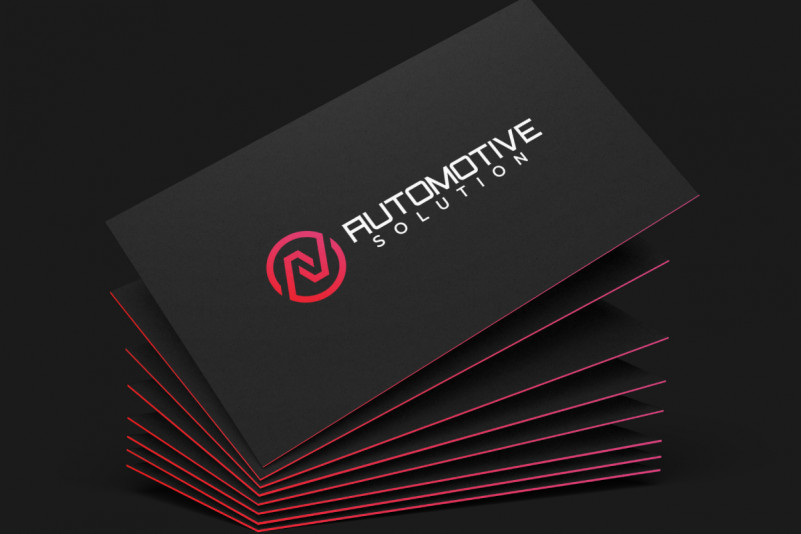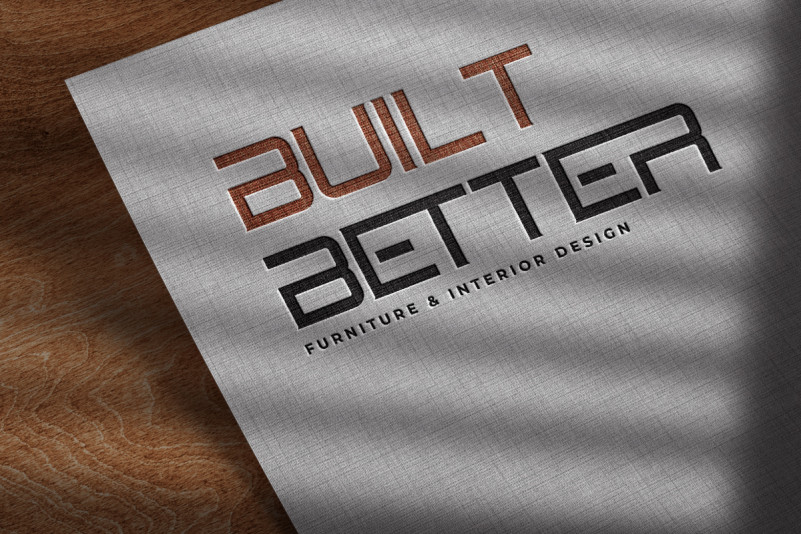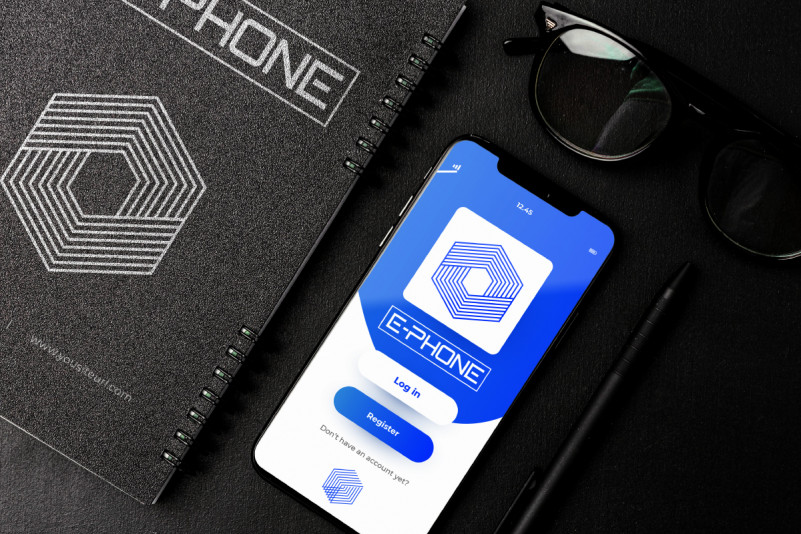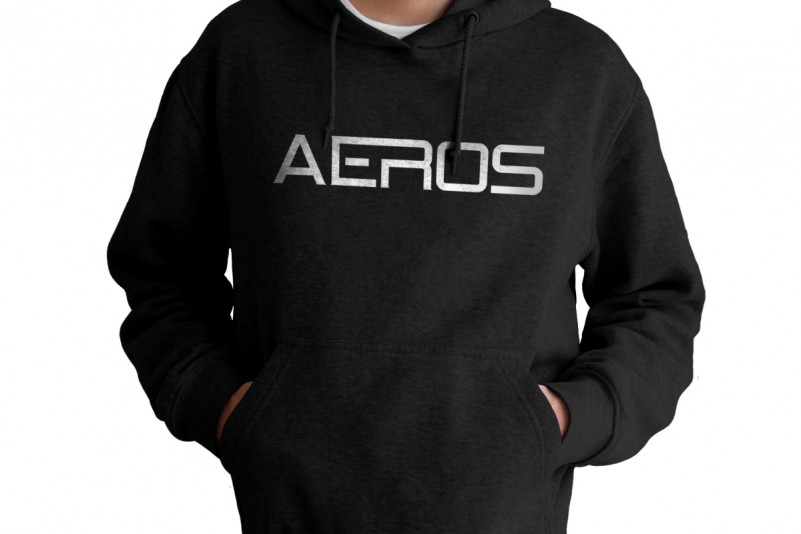
Bitrate Font
Bitrate Display Font
This is a decorative Sans Serif font family, inspired from high tech company and futuristic industries, designed by RaisProject. The font was handcrafted for any your special projects including : headlines, promotion, events, branding, advertising, magazine, signage, invitation, stationery, social media posts, label, or and any projects that need unique strong style. The industries for this font is Startup, Automotive, Apps, Cosmetic, Beauty, Technology, Game, Magazine, Music, Sport etc
Bitrate Display Font includes full set of gorgeous uppercase and lowercase letters ,numerals and Multi languages characters. The font also come with artistic ligatures to make it looks really great and unique.